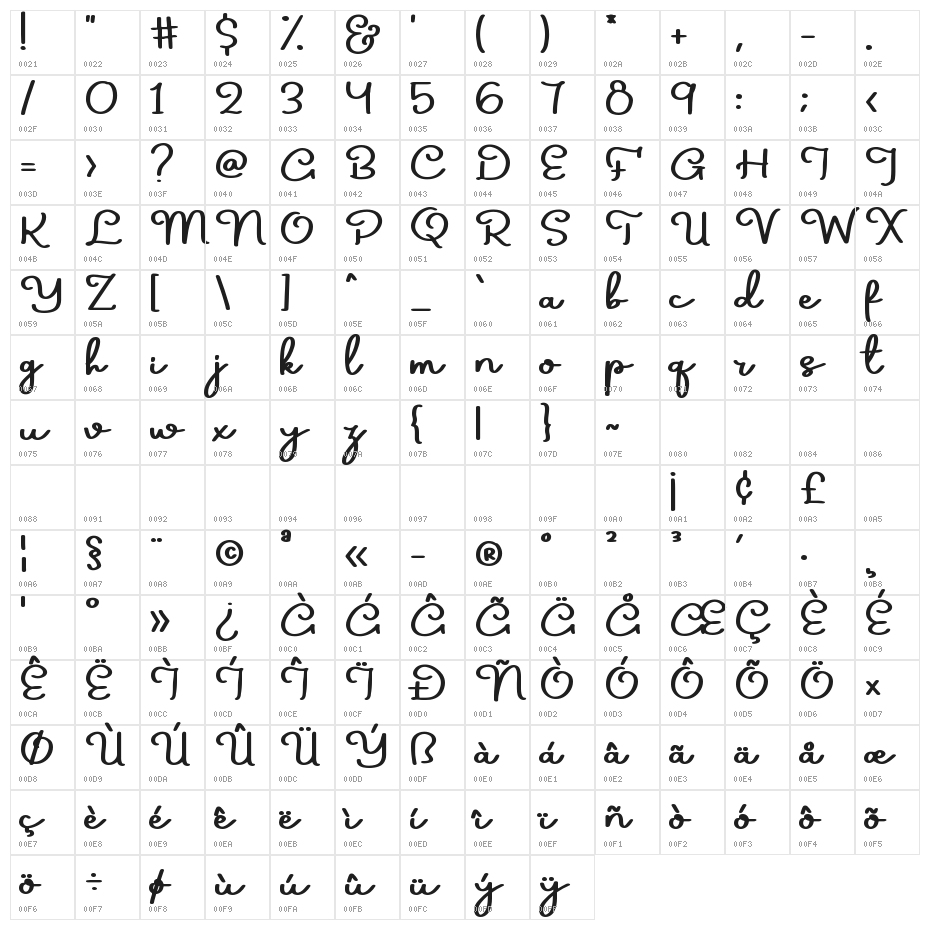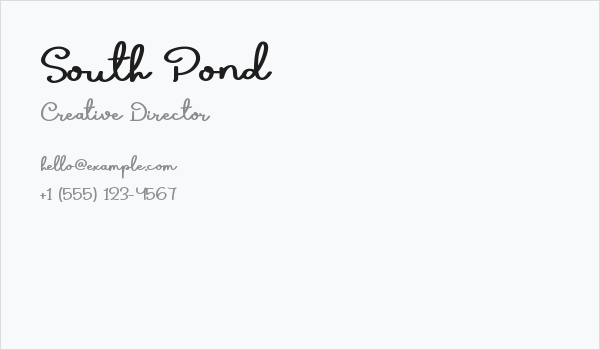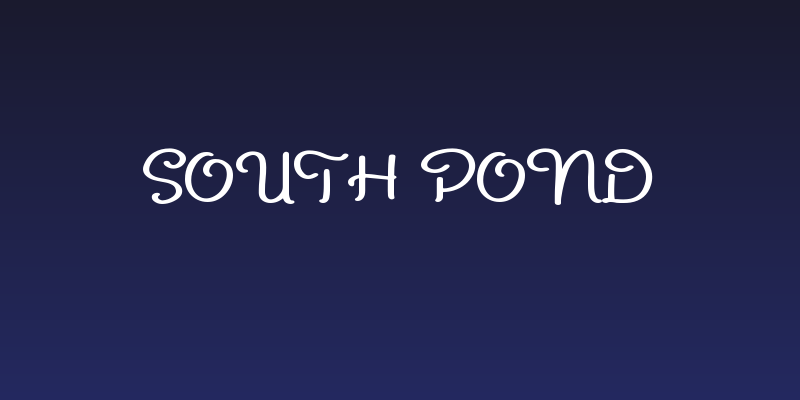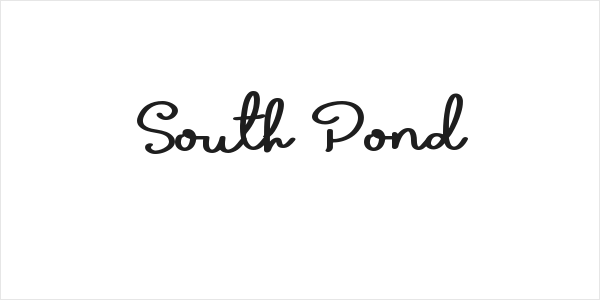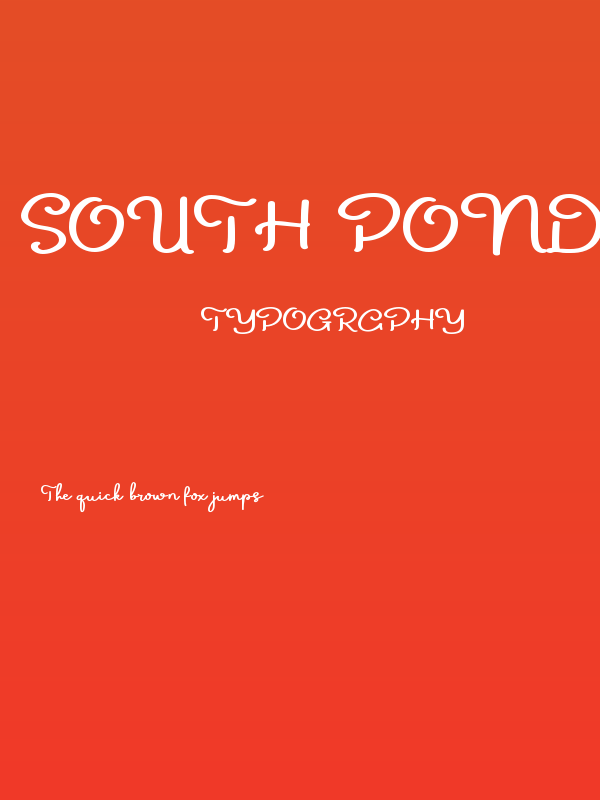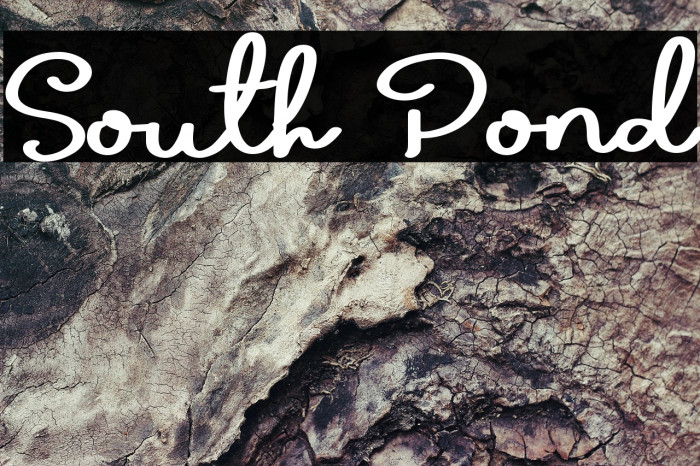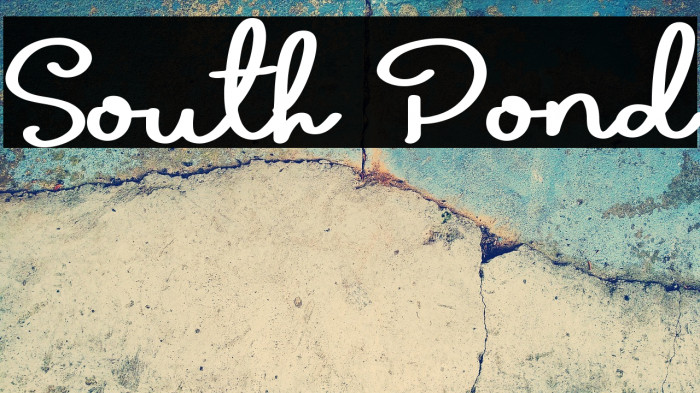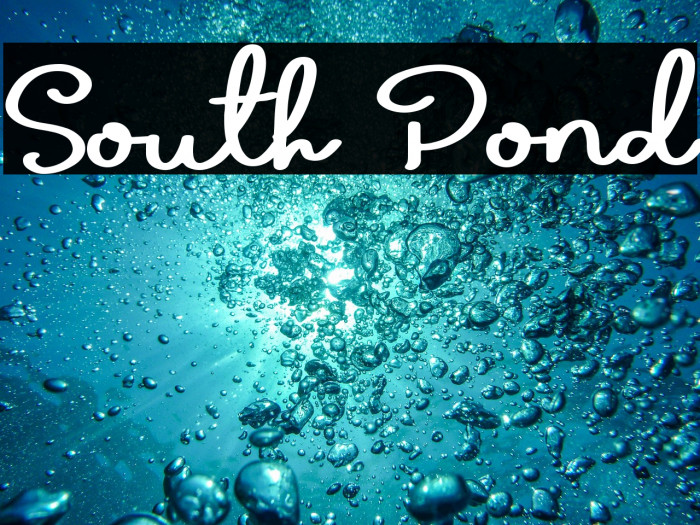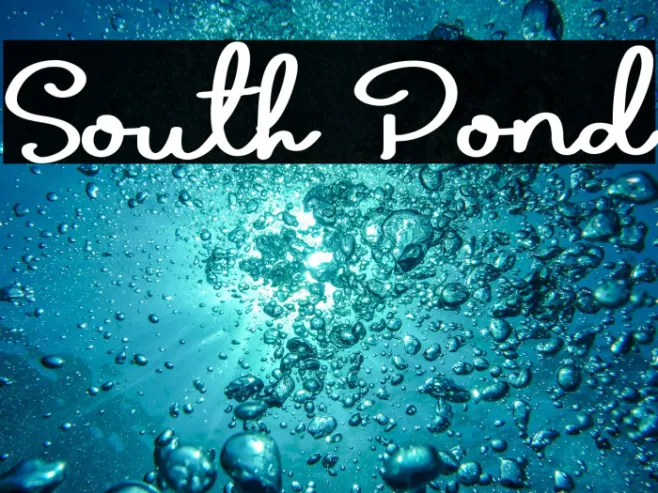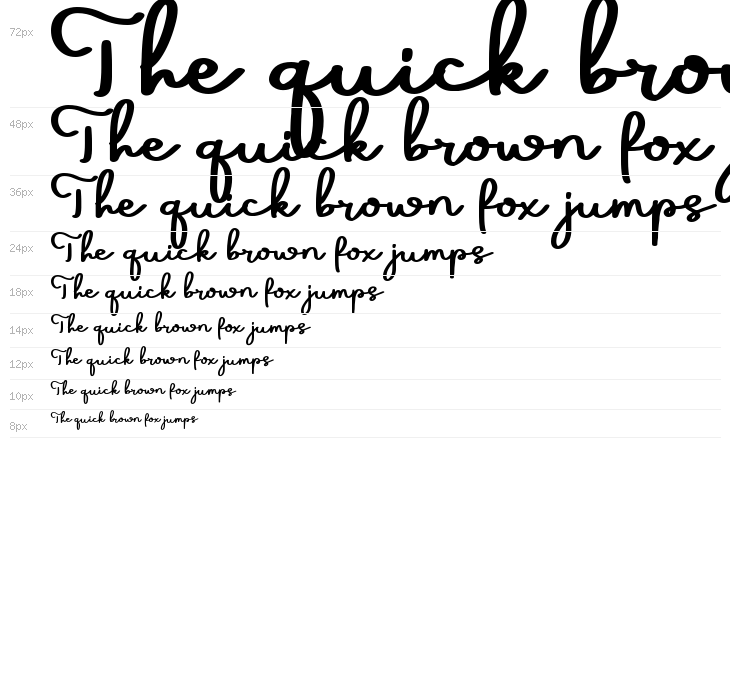
South Pond Font
South Pond Description
This font features a playful and flowing script style, characterized by its smooth, connected letters and a casual, handwritten appearance. The uppercase letters maintain a consistent height and are slightly wider, giving them a bold presence. The lowercase letters are elegantly looped and maintain a consistent baseline, enhancing readability while preserving a whimsical charm. The numerals are rounded and align well with the overall style, ensuring they complement the alphabetic characters. Special characters are creatively integrated, maintaining the font's cohesive look. This font's unique style makes it suitable for projects that require a personal touch, such as invitations, greeting cards, or branding materials.
| Proposed Projects | Ideal for invitations, greeting cards, branding, and creative projects requiring a personal touch. |